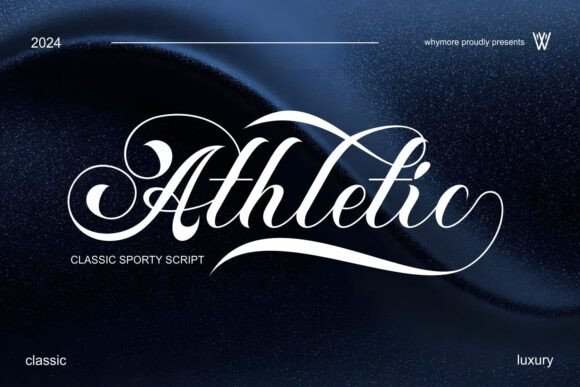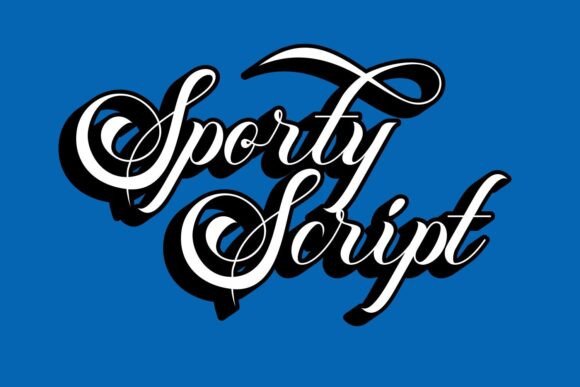
Athletic Font
About the Athletic Font
The Athletic Font is here to transform your projects with its distinctive character and style. Athletic is a stylish and incredibly elegant script font. It looks stunning on wedding invitations, thank you cards, quotes, greeting cards, logos, business cards and every other design which needs a handwritten touch.
Athletic’s elegant script style shines in applications requiring a touch of sophistication and personality, such as logos, branding for luxury goods, or short, impactful headlines. It’s equally effective on high-quality print materials like invitations and stationery. However, its decorative nature makes it unsuitable for body text or UI elements where readability is paramount. Avoid using it for lengthy paragraphs or website content.
Pairing Athletic with a clean sans-serif like Montserrat or a geometric sans-serif like Futura creates a balanced contrast, allowing the script’s elegance to stand out without overwhelming the design. For a more traditional feel, a classic serif like Garamond or Didot provides a refined complement.
The overall personality of Athletic is sophisticated and slightly romantic, yet maintains a confident and bold presence. It’s ideal for brands aiming for a premium, personalized image.
Athletic Font Usage Examples
Athletic Font Example